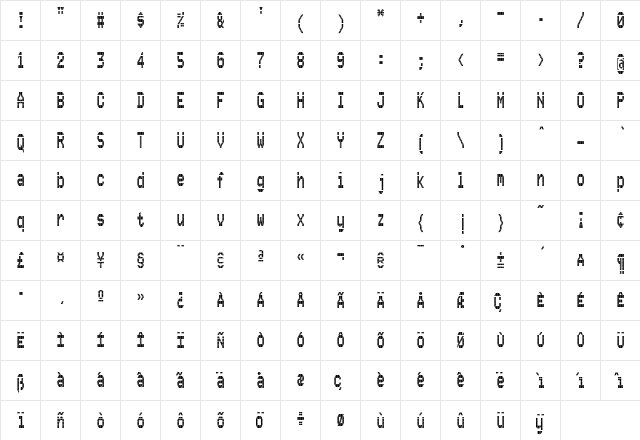
Luggagetag One Font Preview
Luggagetag One
Design Context for Luggagetag Typeface
Luggagetag is a composed and adaptable typeface that performs quietly and consistently across a wide range of design contexts.